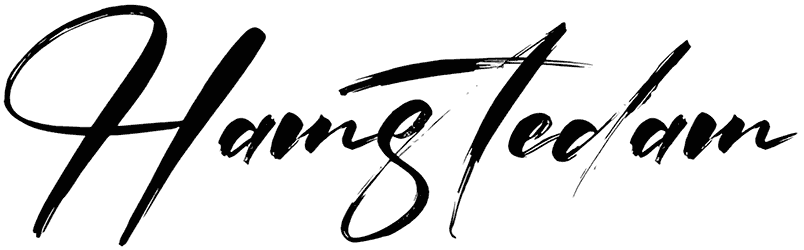
Hamstedam Font
Welcome to Hamstedam, a dry brush font with an italic, cursive look. It has a hand-drawn display that makes it perfect for those designs that need a natural touch. This script font supports all the characters, even multilingual ones, but it might be a little unreadable. You can use it for greeting cards, party invitations, branding materials, movie posters, and journal notebook covers.